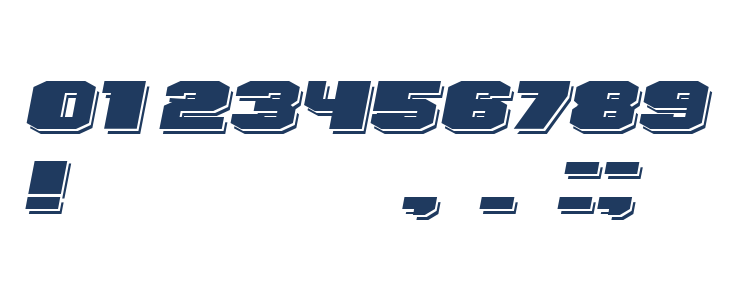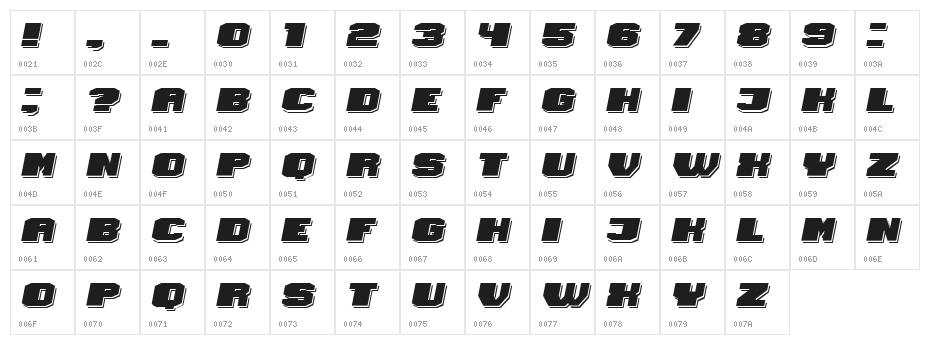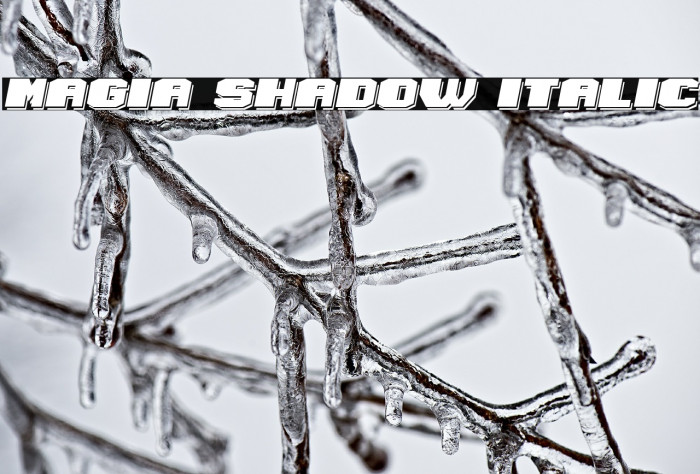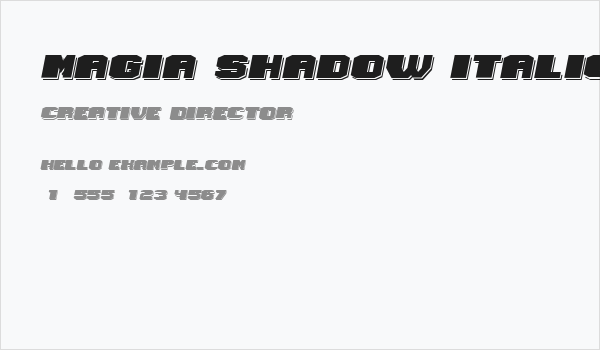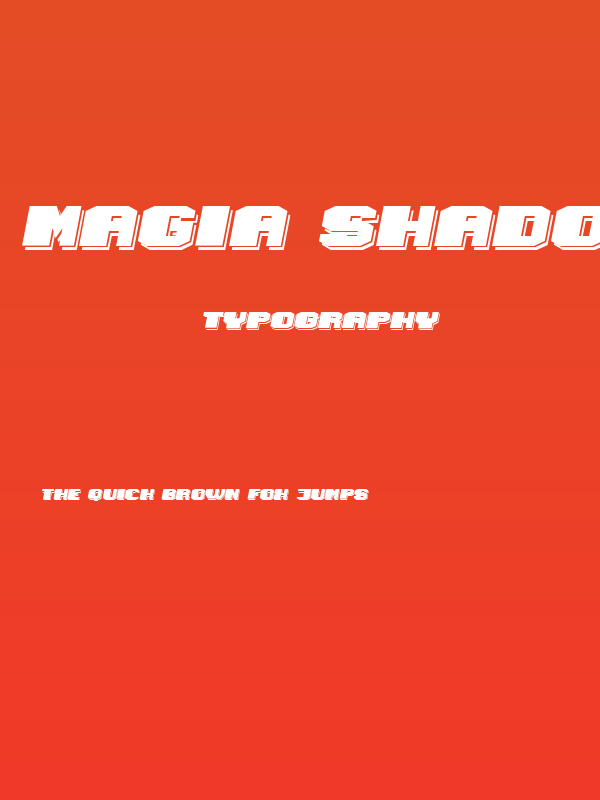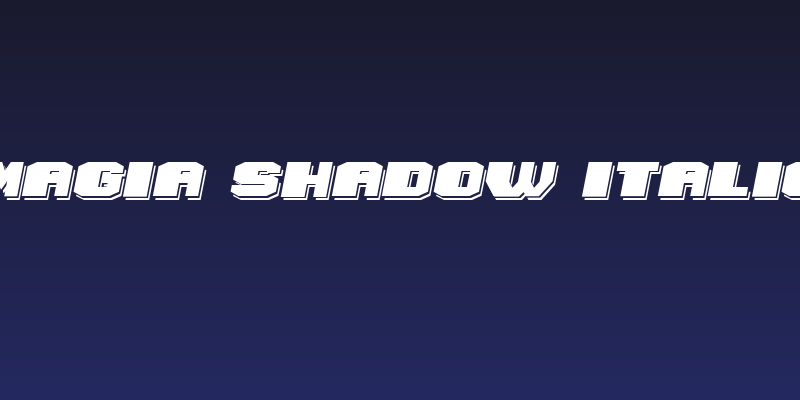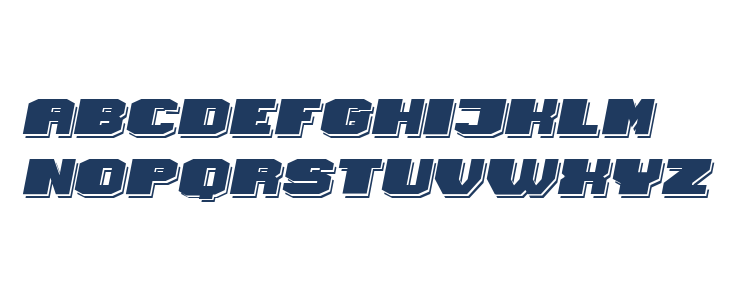
Magia Shadow Italic Font
Magia Shadow Italic Description
This bold, italicized font features a striking shadow effect that gives each character a three-dimensional appearance. The uppercase letters are robust and angular, with a consistent slant that adds a dynamic feel. The numbers and special characters follow the same bold and shadowed style, ensuring uniformity across all elements. The font's design is modern and eye-catching, making it ideal for projects that require a strong visual impact. Its unique style is perfect for creating standout headlines or logos that demand attention.
Proposed ProjectsIdeal for creating eye-catching headlines, logos, posters, and branding materials.